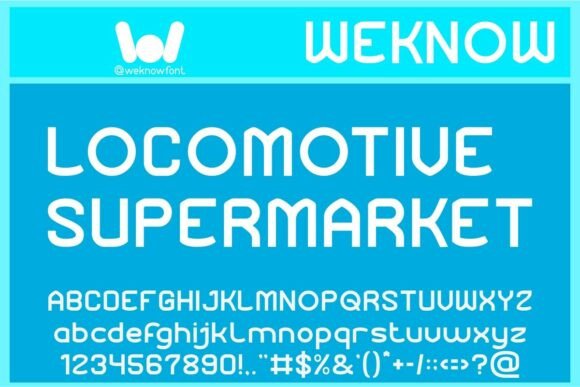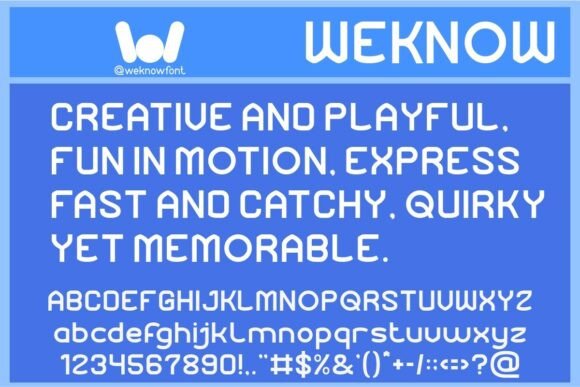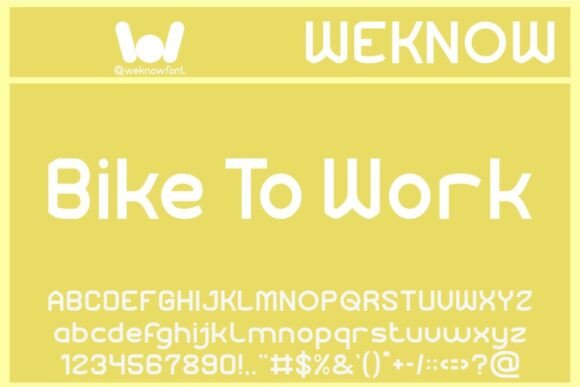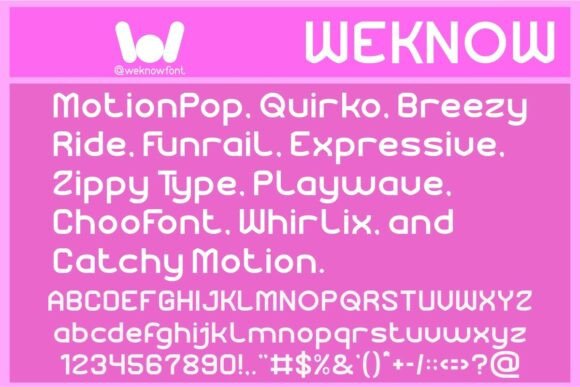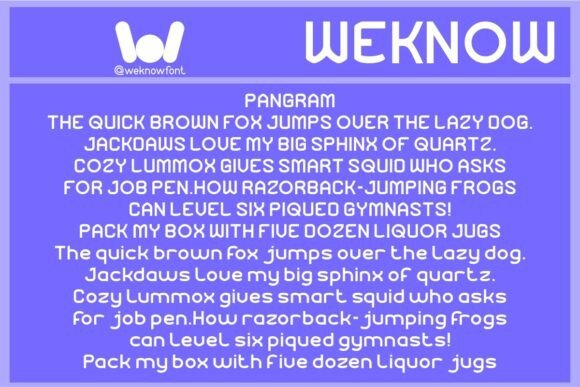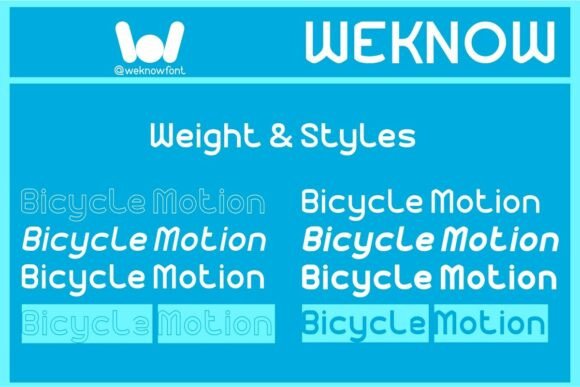
Bicycle Motion Font: Elevate Your Designs with a Unique Blend of Modern Sophistication and Retro-Futurism
In the realm of typography, few fonts manage to strike a balance between modern sophistication and retro-futuristic charm. Bicycle Motion font is one such exceptional typeface that seamlessly merges techno and vintage aesthetics, making it a versatile choice for designers and crafters. This sans serif font boasts buttery smooth, geometric lines and delightfully rounded terminals, giving it a playful yet elegant appeal.
The Essence of Bicycle Motion Typeface
Bicycle Motion typeface is more than just a font; it’s a style statement. Its unique blend of modern and retro-futuristic elements makes it an eye-catching addition to any design project. The font’s smooth, geometric lines and rounded terminals evoke a sense of dynamism and playfulness, perfect for brands looking to establish a unique identity. Whether you’re designing a logo, headline, or corporate identity, Bicycle Motion font is sure to make a lasting impression.
Ideal Applications for Bicycle Motion Font
Bicycle Motion font is incredibly versatile and can be used in a wide range of design applications. Some of the ideal uses for this font include:
- Apparel Industry: Add a touch of personality to your fashion brand with Bicycle Motion font. It’s perfect for logo designs, product labels, and packaging.
- Music and Movie Titles: Create eye-catching titles and posters with Bicycle Motion font. Its retro-futuristic charm is sure to grab attention.
- Gaming Interfaces: Elevate your game design with Bicycle Motion font. Its modern sophistication and playfulness make it perfect for game titles, menus, and interfaces.
- Magazine Layouts and Book Covers: Add a dash of personality to your magazine layouts and book covers with Bicycle Motion font. Its unique style is sure to make your publication stand out.
- Comic Dialogue and Cartoon Captions: Bring your comics and cartoons to life with Bicycle Motion font. Its playful and dynamic appeal is perfect for dialogue and captions.
- YouTube Channels, Instagram Stories, and Websites: Use Bicycle Motion font to add a twist to your online presence. Its versatility and style make it perfect for social media graphics, website headers, and more.
Why Choose Bicycle Motion Font?
With so many fonts available, why choose Bicycle Motion? Here are a few compelling reasons:
- Unique Style: Bicycle Motion font offers a distinctive style that sets it apart from other fonts. Its blend of modern sophistication and retro-futurism makes it a standout choice.
- Versatility: This font is incredibly versatile and can be used in a wide range of design applications, from logos and headlines to magazine layouts and website headers.
- Ease of Use: Bicycle Motion font is easy to read and works well in both digital and print formats, making it a convenient choice for designers.
Tips for Using Bicycle Motion Font Effectively
To get the most out of Bicycle Motion font, here are a few tips:
- Pair it with Other Fonts: Combine Bicycle Motion font with other fonts to create a unique and visually appealing design.
- Experiment with Colors: Play around with different colors to find the perfect match for your design.
- Use it for Headlines and Titles: Bicycle Motion font is perfect for headlines and titles. Use it to grab attention and add personality to your design.
In conclusion, Bicycle Motion font is a versatile and stylish typeface that can elevate any design project. Its unique blend of modern sophistication and retro-futurism makes it a standout choice for designers and crafters. Whether you’re looking to create a unique brand identity, eye-catching headlines, or add personality to your design, Bicycle Motion font is the perfect choice.